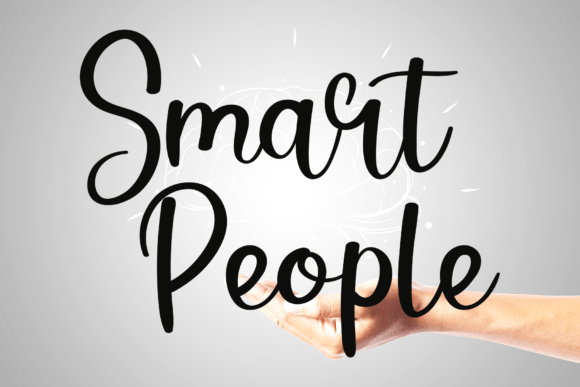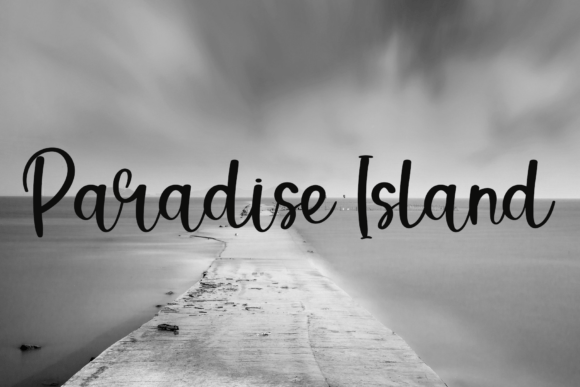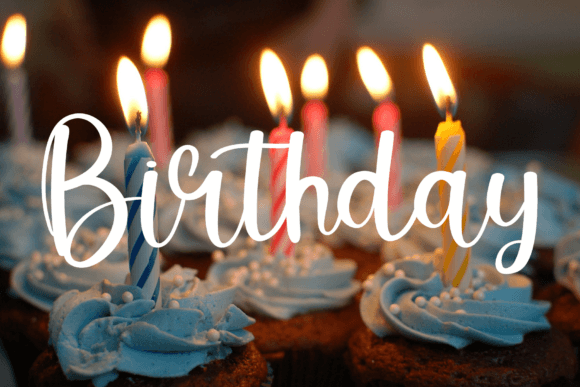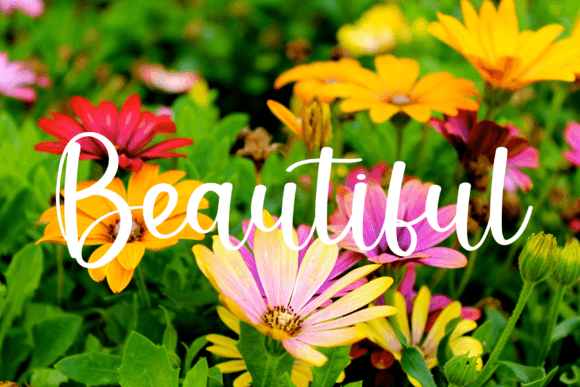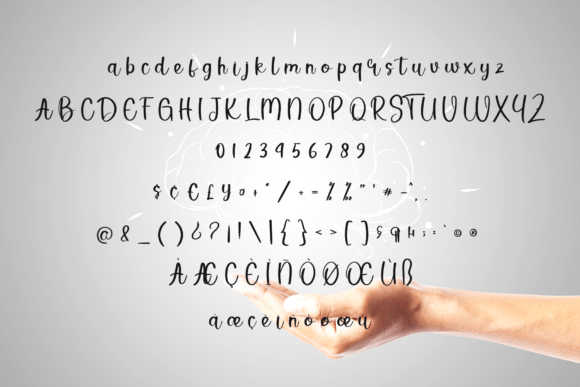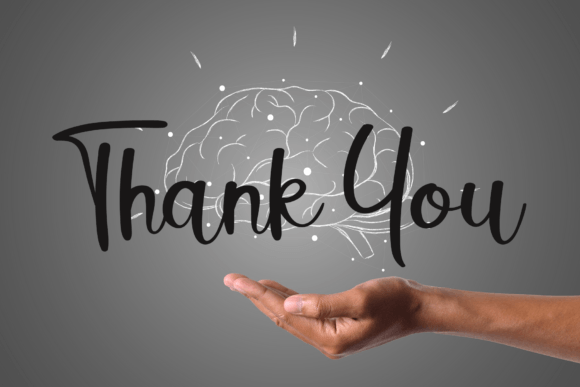
Brain Font: The Ultimate Friendly Handwritten Font for Creative Projects
Are you a designer, crafter, or DIY enthusiast looking for a font that can add a touch of personality to your creative projects? Look no further than Brain Font, a cute and casual handwritten font that exudes an incredibly friendly feel. In this article, we’ll dive into the world of Brain Font and explore its features, benefits, and uses.
What is Brain Font?
Brain Font is a modern, handwritten font designed to bring a sense of warmth and approachability to your creative projects. Its casual, relaxed style makes it perfect for a wide range of applications, from social media graphics and Instagram posts to calligraphy scripts and DIY projects.
Key Features of Brain Font
- Cute and Casual: Brain Font boasts a playful, informal style that’s sure to capture the attention of your audience.
- Friendly Feel: The font’s friendly and approachable vibe makes it perfect for projects that require a personal touch.
- Highly Versatile: Brain Font can be used for a wide range of creative projects, from digital graphics to handmade crafts.
- Easily Readable: The font’s clear and legible design ensures that your message is conveyed effectively.
Benefits of Using Brain Font
So why choose Brain Font for your creative projects? Here are just a few benefits of using this amazing font:
- Adds Personality: Brain Font helps you add a touch of personality to your projects, setting them apart from the crowd.
- Enhances Engagement: The font’s friendly and approachable style encourages engagement and interaction with your audience.
- Perfect for DIY Projects: Brain Font is ideal for handmade crafts, DIY projects, and other creative endeavors that require a personal touch.
- Instagram-Worthy: Use Brain Font to create stunning Instagram graphics that showcase your creativity and style.
Using Brain Font for Creative Projects
So how can you use Brain Font to elevate your creative projects? Here are a few ideas to get you started:
- Instagram Graphics: Create eye-catching Instagram graphics using Brain Font, perfect for showcasing your products, services, or artistic talents.
- Calligraphy Scripts: Use Brain Font to create beautiful calligraphy scripts for DIY projects, such as handmade cards, invitations, and gift tags.
- DIY Crafts: Add a personal touch to your DIY crafts, such as knitted items, jewelry, or home decor, with Brain Font.
- Stationery and Gift Tags: Use Brain Font to create custom stationery, gift tags, and other paper crafts that showcase your personality and style.
Tips and Tricks for Working with Brain Font
Here are a few tips and tricks to help you get the most out of Brain Font:
- Experiment with Colors: Pair Brain Font with a range of colors to add depth and visual interest to your projects.
- Mix and Match: Combine Brain Font with other fonts and graphics to create unique and eye-catching designs.
- Pay Attention to Size: Adjust the font size to ensure that your text is clear and easily readable.
- Add Texture and Patterns: Incorporate texture and patterns into your designs to add an extra layer of visual interest.
Brain Font is a versatile and friendly handwritten font that’s perfect for designers, crafters, and DIY enthusiasts. With its cute and casual style, highly readable design, and wide range of applications, Brain Font is sure to become a go-to font in your creative toolkit. Whether you’re looking for fonts for Instagram, calligraphy scripts for DIY projects, or a font that adds a personal touch to your stationery and gift tags, Brain Font is the ultimate choice.